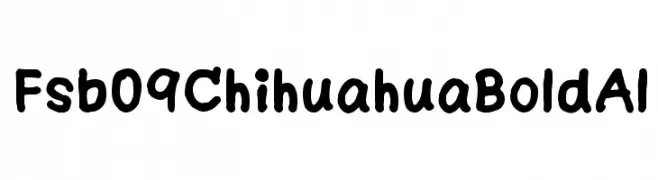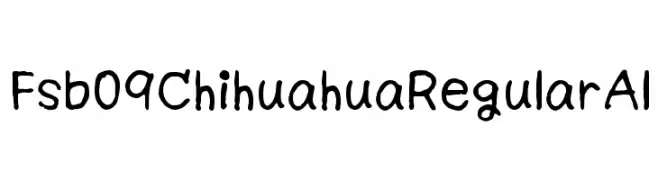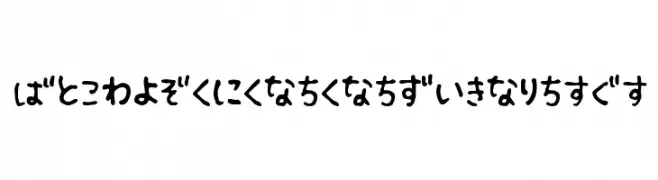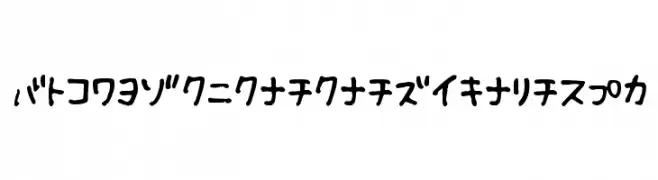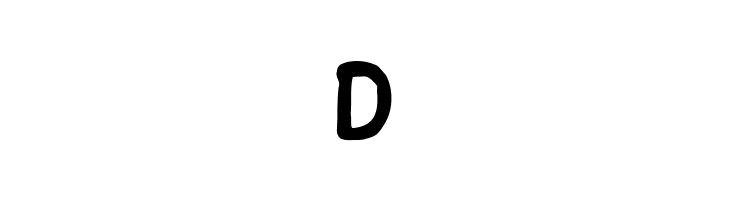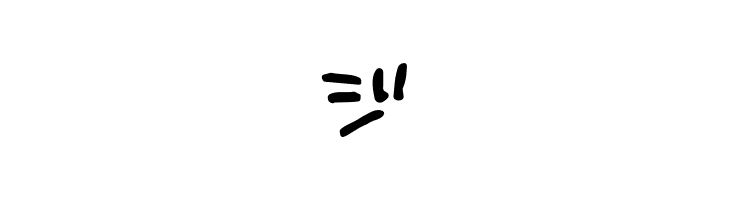
• Fsb09ChihuahuaBoldAl
A playful, bold font with rounded, hand-drawn characters.
• Fsb09ChihuahuaBoldHr
A playful, bold font with rounded, bubbly characters ideal for fun projects.
• Fsb09ChihuahuaBoldKt
A playful, bold font with rounded, hand-drawn characters.
• Fsb09ChihuahuaLightAl
A playful, handwritten font with uneven strokes and a casual style.
• Fsb09ChihuahuaLightHr
• Fsb09ChihuahuaLightKt
A playful, hand-drawn font with irregular strokes and a whimsical style.
• Fsb09ChihuahuaRegularAl
A playful, handwritten font with a casual and friendly appearance.
• Fsb09ChihuahuaRegularHr
A playful, hand-drawn font with bold, rounded characters.
• Fsb09ChihuahuaRegularKt
A playful, hand-drawn font with a whimsical and informal style.